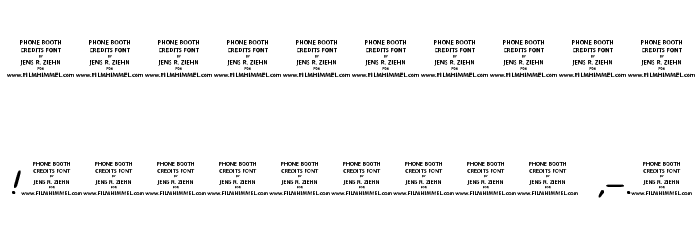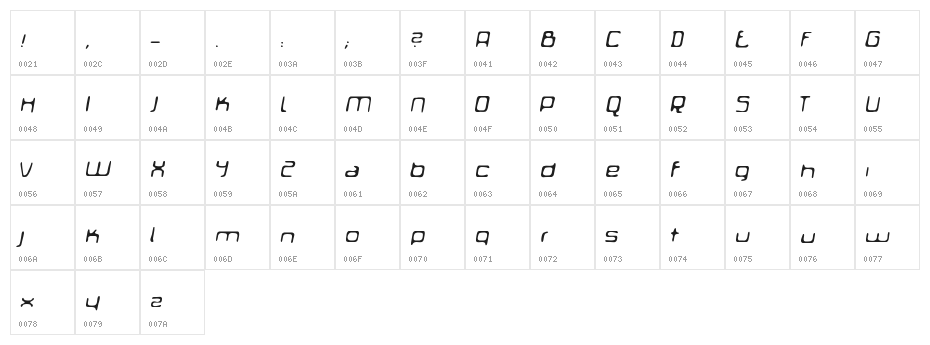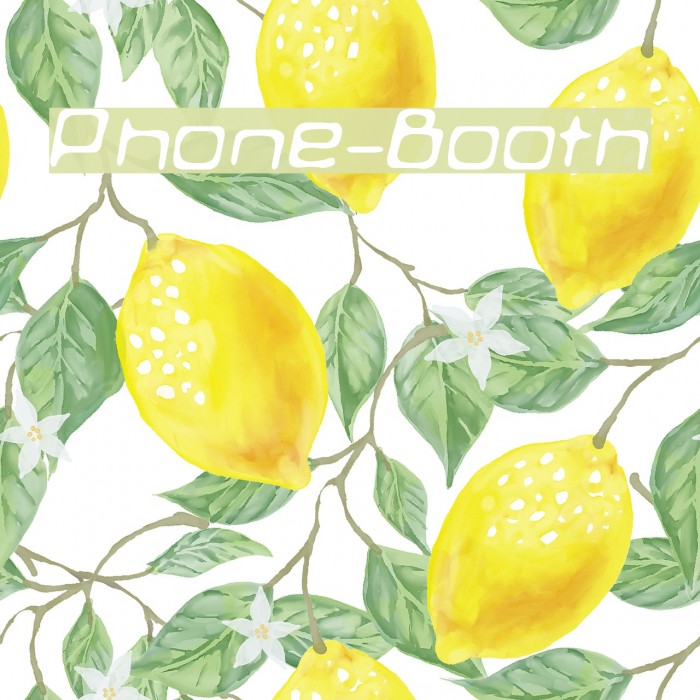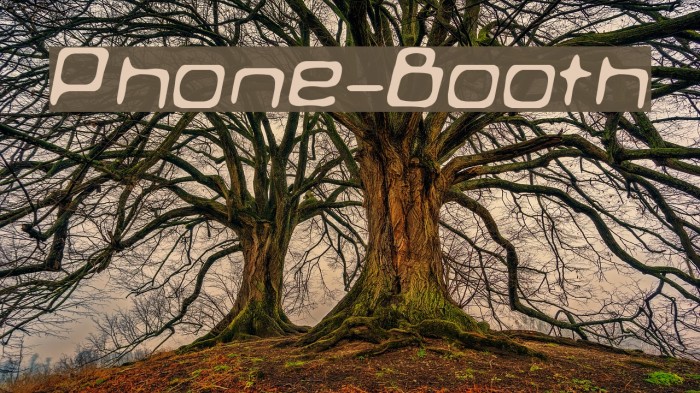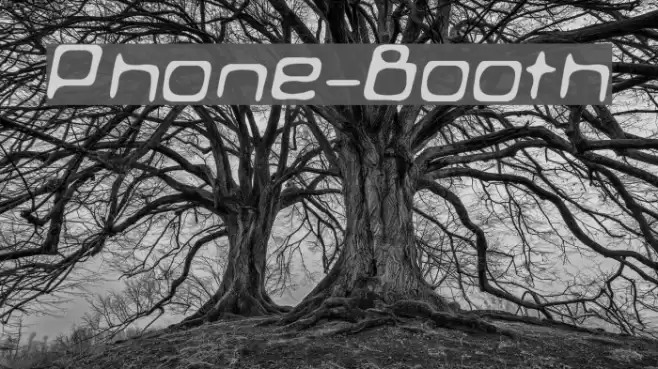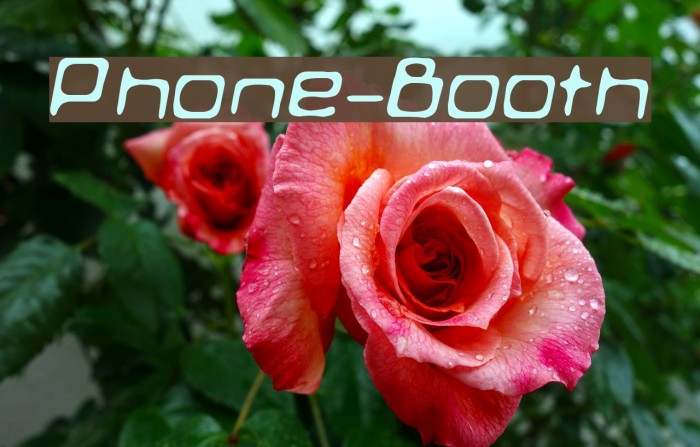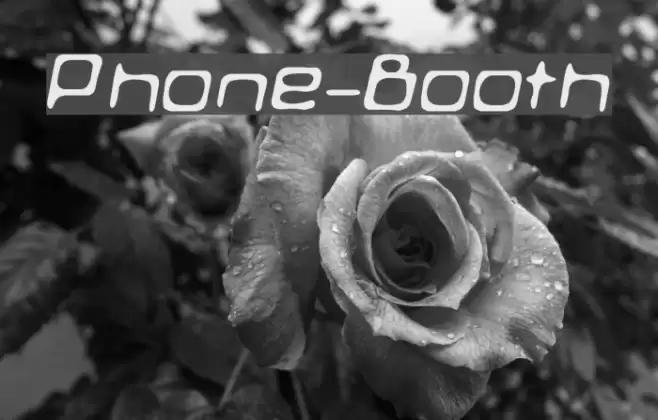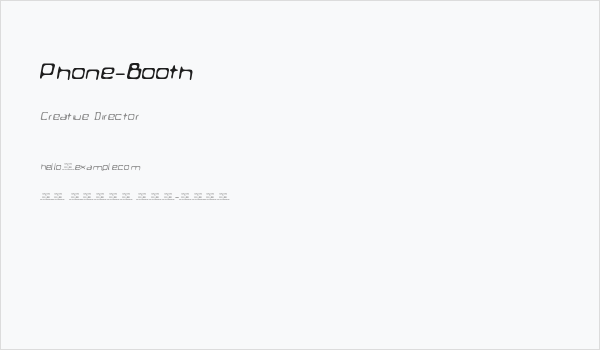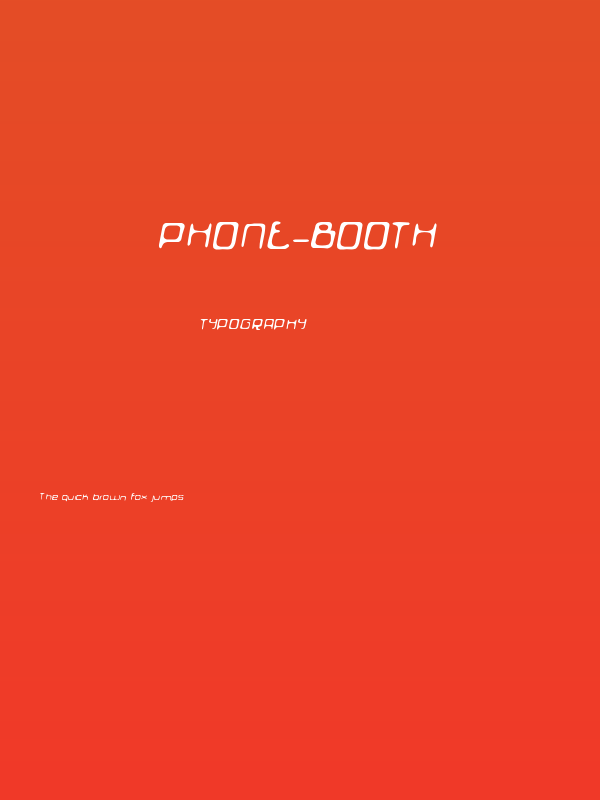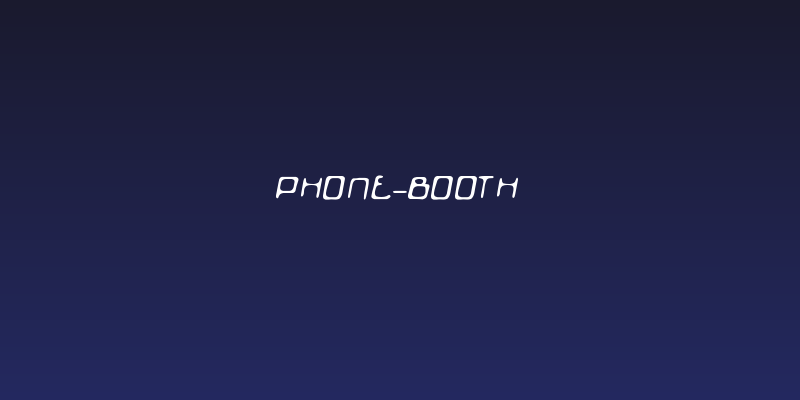
Phone-Booth Font
Phone-Booth Description
This font features a unique, futuristic design with rounded edges and a slightly condensed form. The characters have a smooth, flowing appearance, giving them a modern and sleek look. The uppercase letters are bold and prominent, while the lowercase letters maintain a consistent style with a slightly more delicate touch. The numbers and special characters are designed to match the overall aesthetic, ensuring a cohesive look across all text. The font's distinct style makes it suitable for projects that require a modern and innovative feel.
| Proposed Projects | Ideal for technology branding, sci-fi themed projects, modern advertising, and innovative product packaging. |